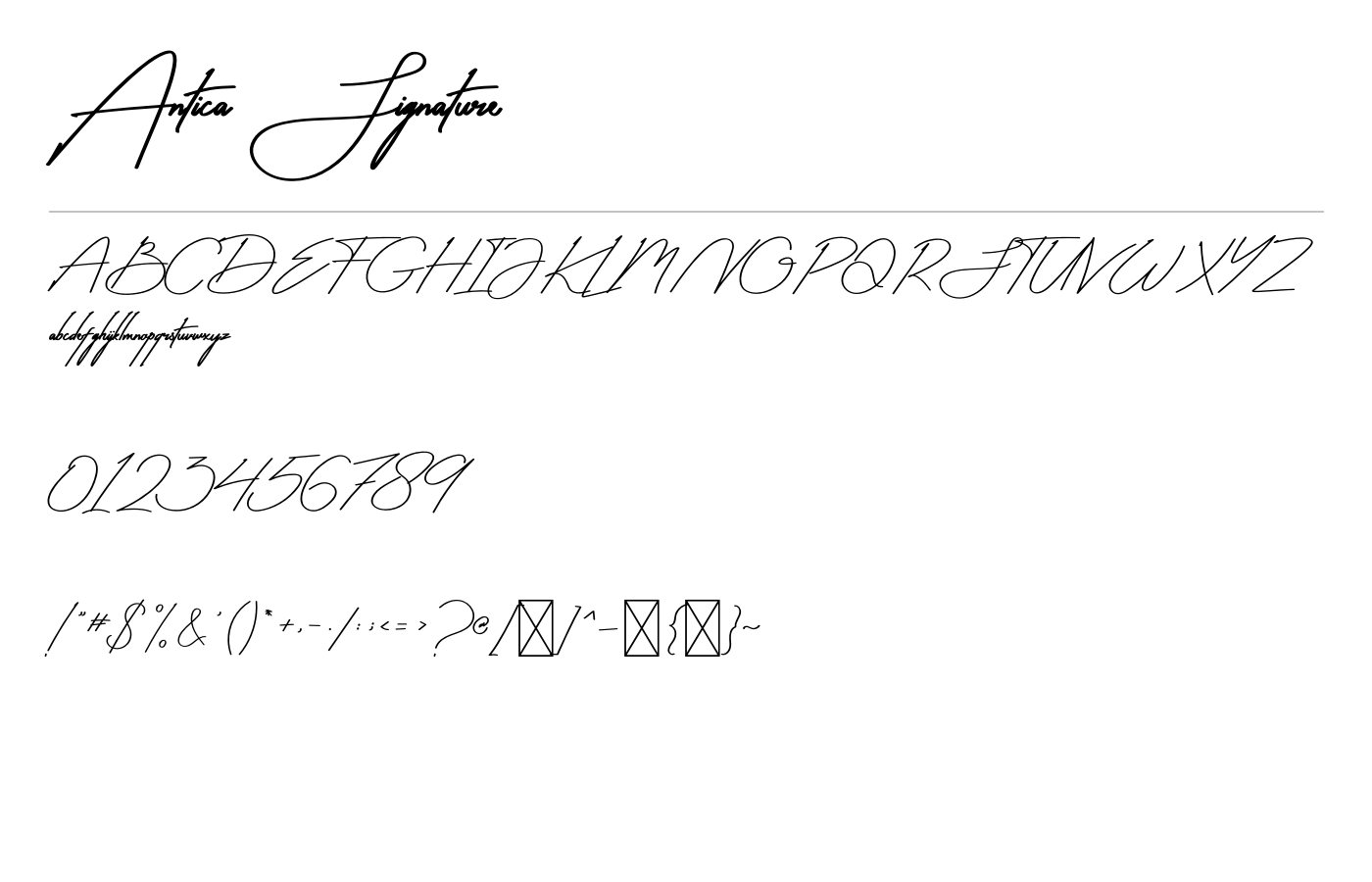
Antica Signature Font is a delicate, elegant script typeface with a light weight and graceful, flowing strokes that mimic natural handwriting. Its tall, slender letterforms with subtle variations in stroke width give it a refined, sophisticated feel perfect for luxury branding, invitations, and logos that seek a personal yet polished touch. This font works beautifully in contexts where a stylish, handwritten signature or a classy, artistic impression is desired.
Antica Signature Font
About Antica Signature Font
| Font family | Antica Signature Font |
| Designer | Rizalul A mmar |